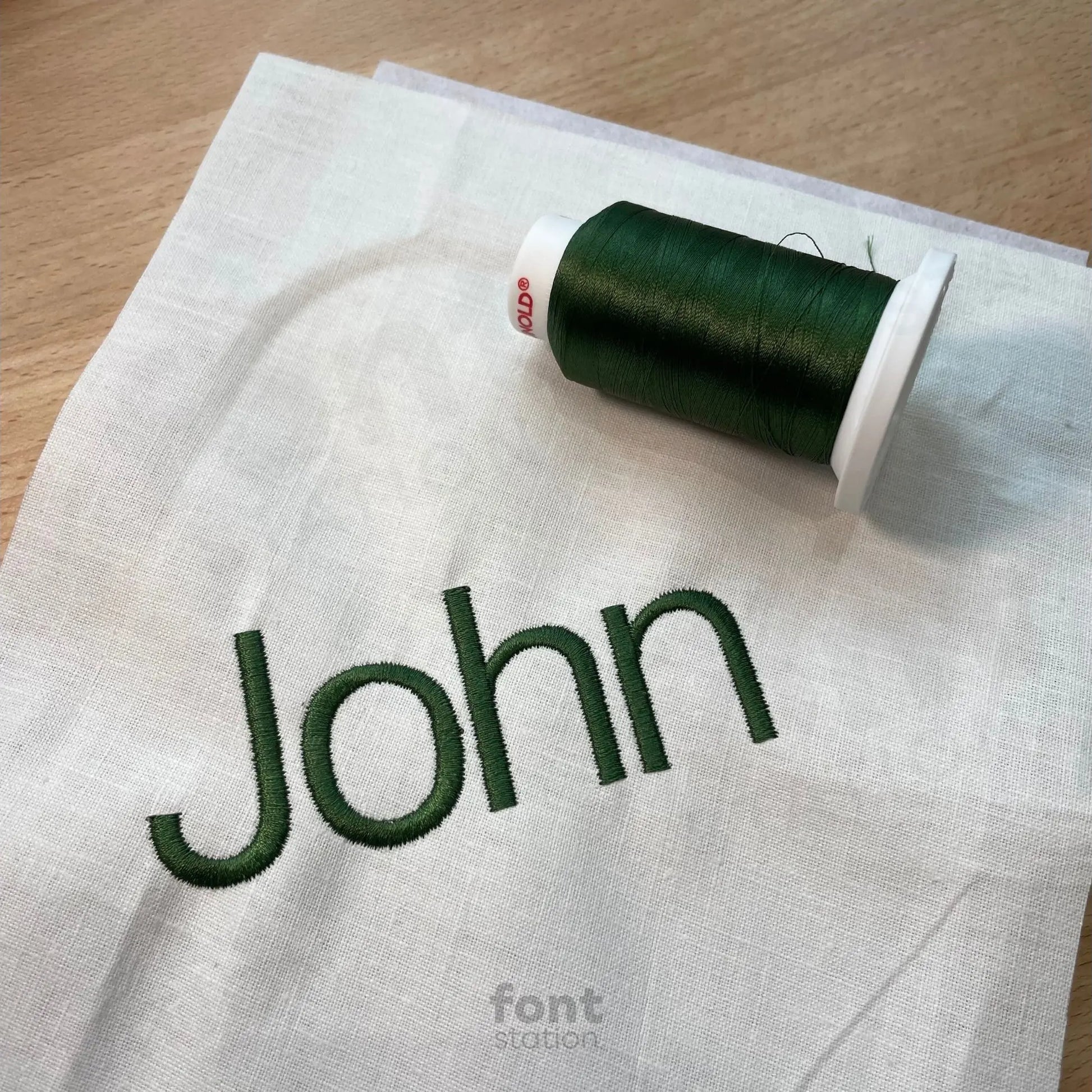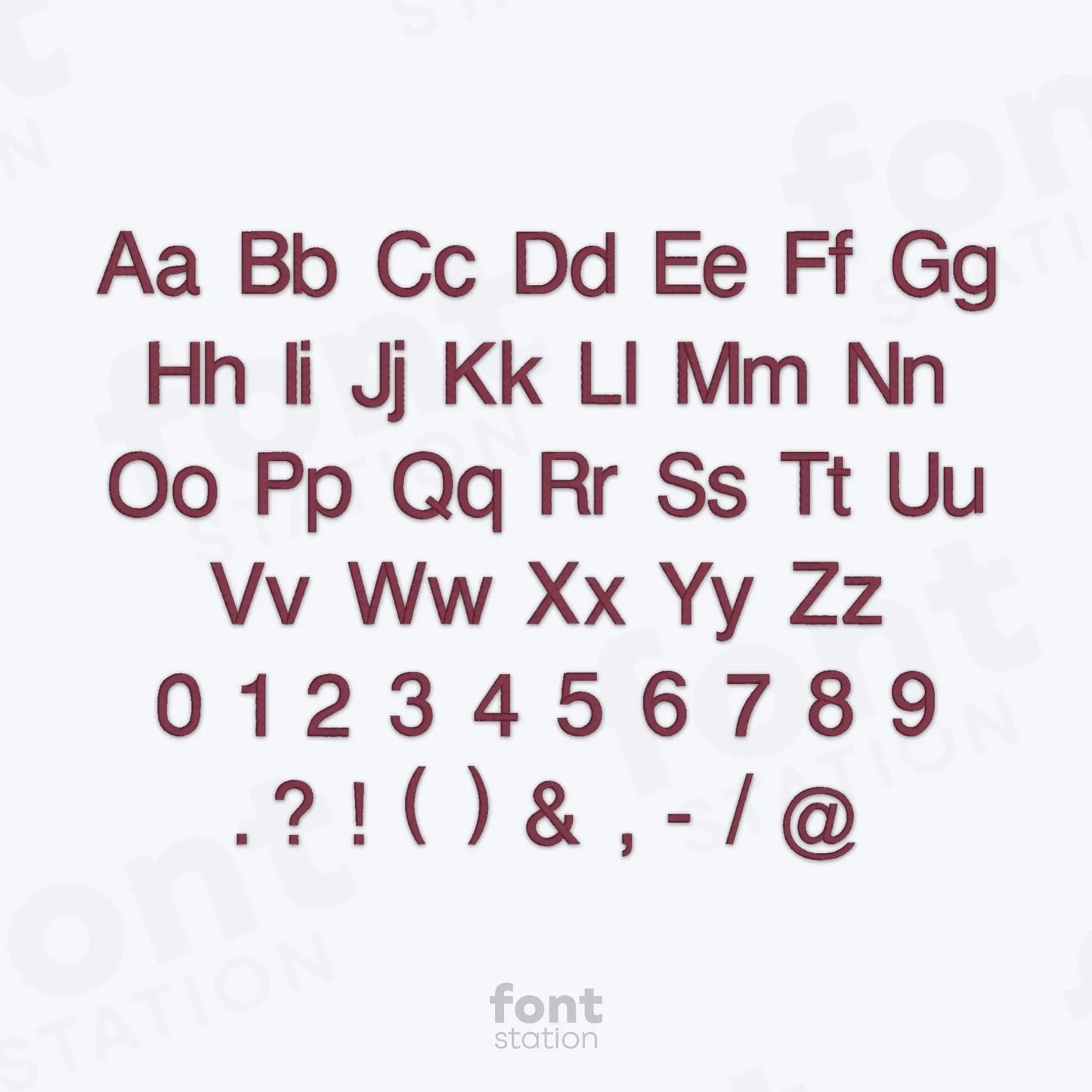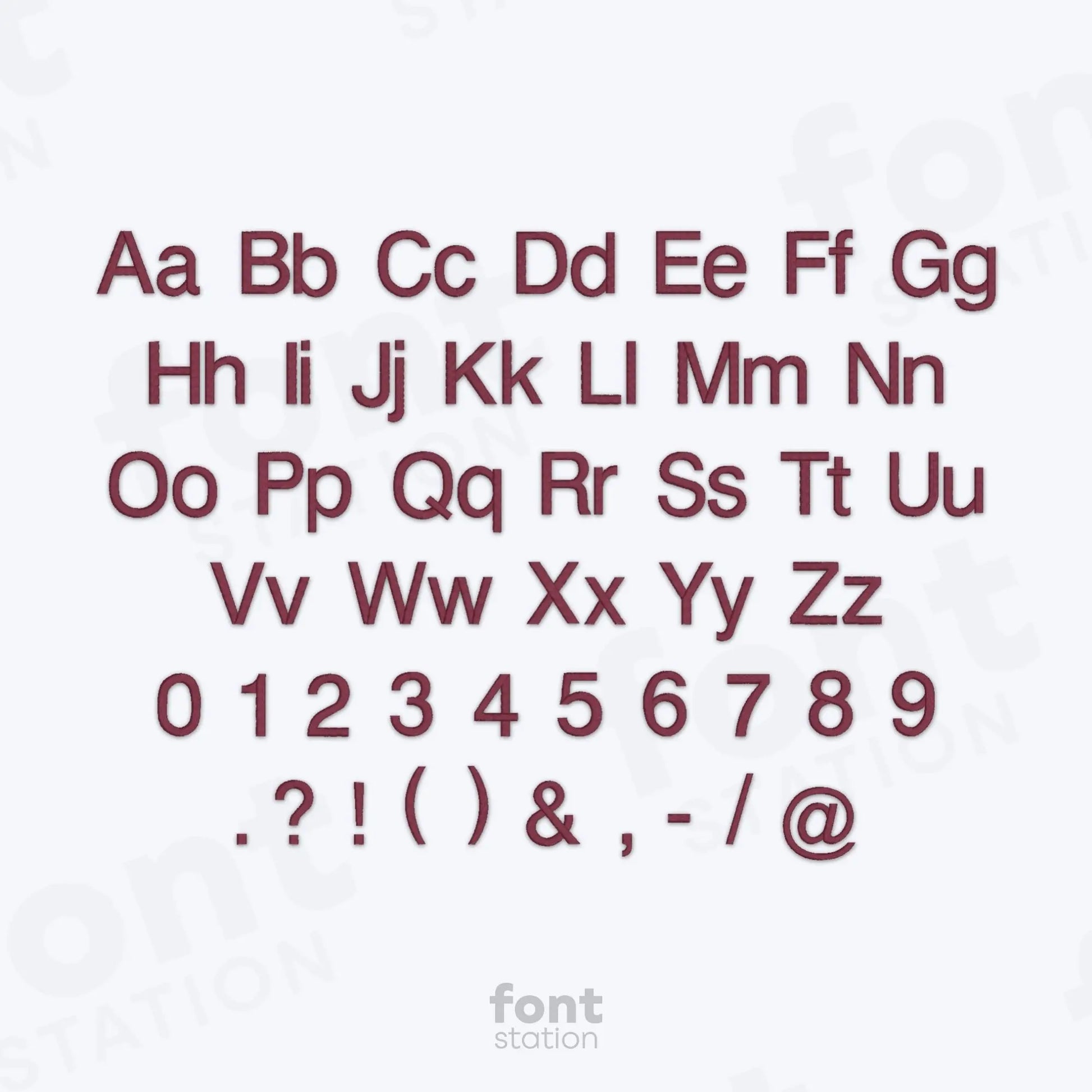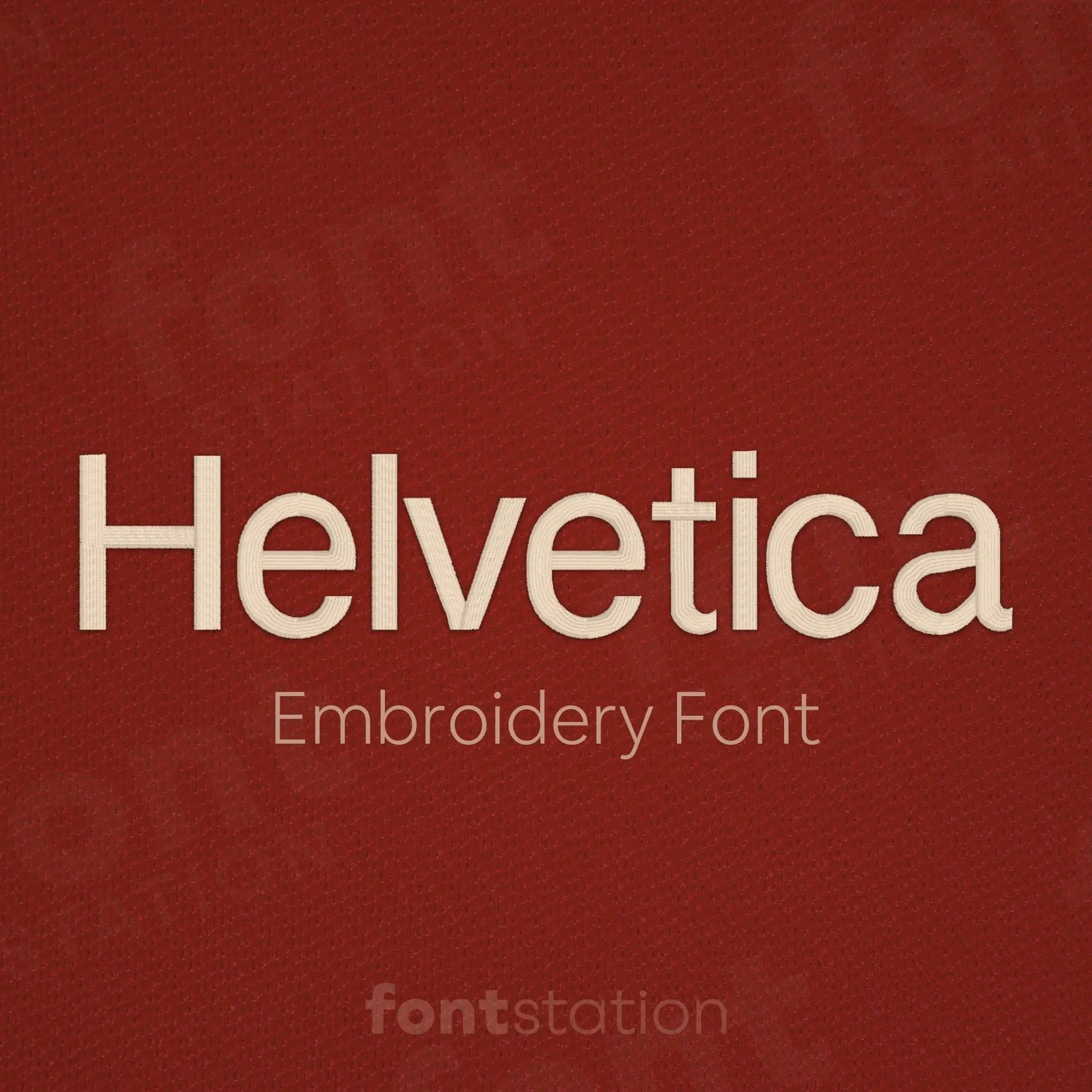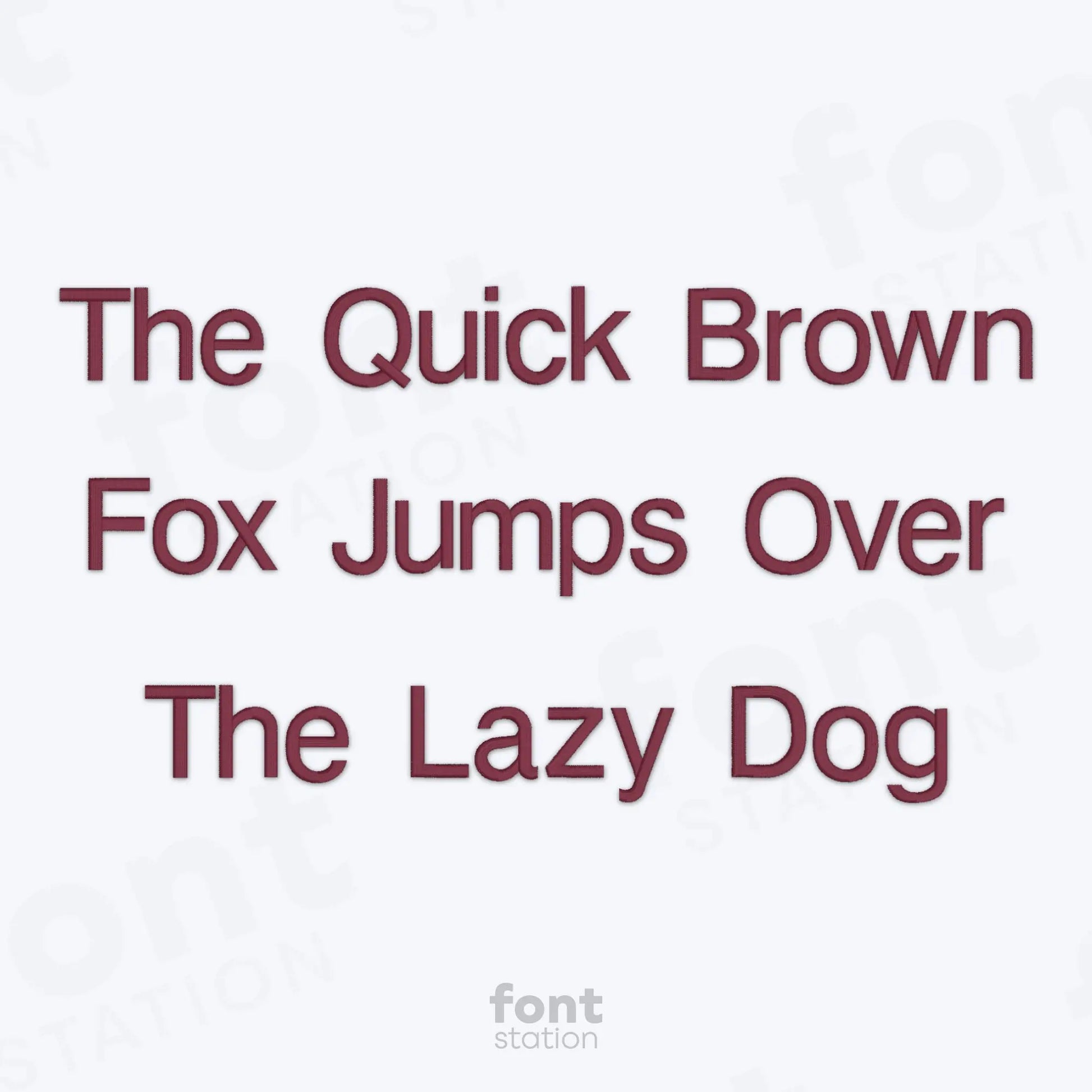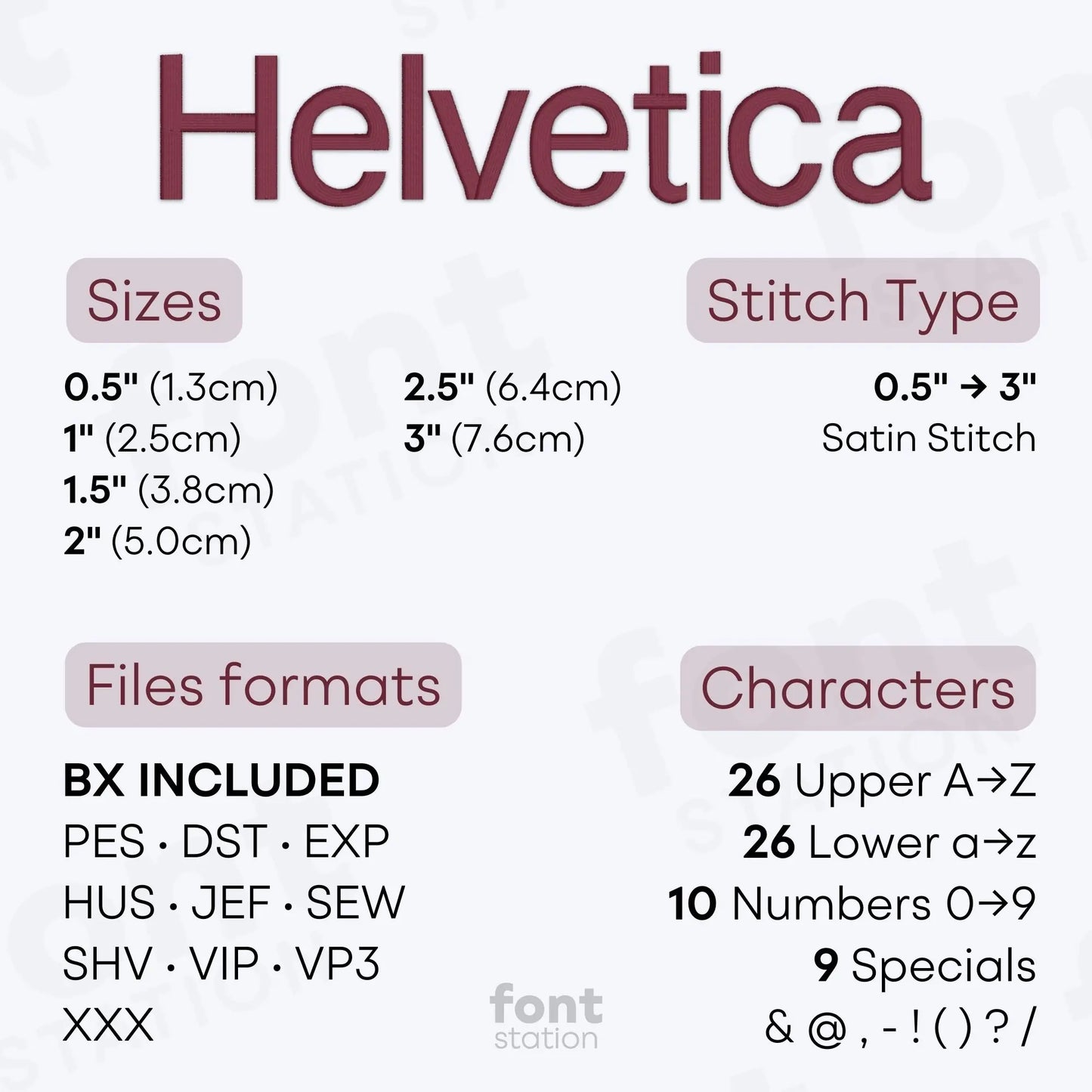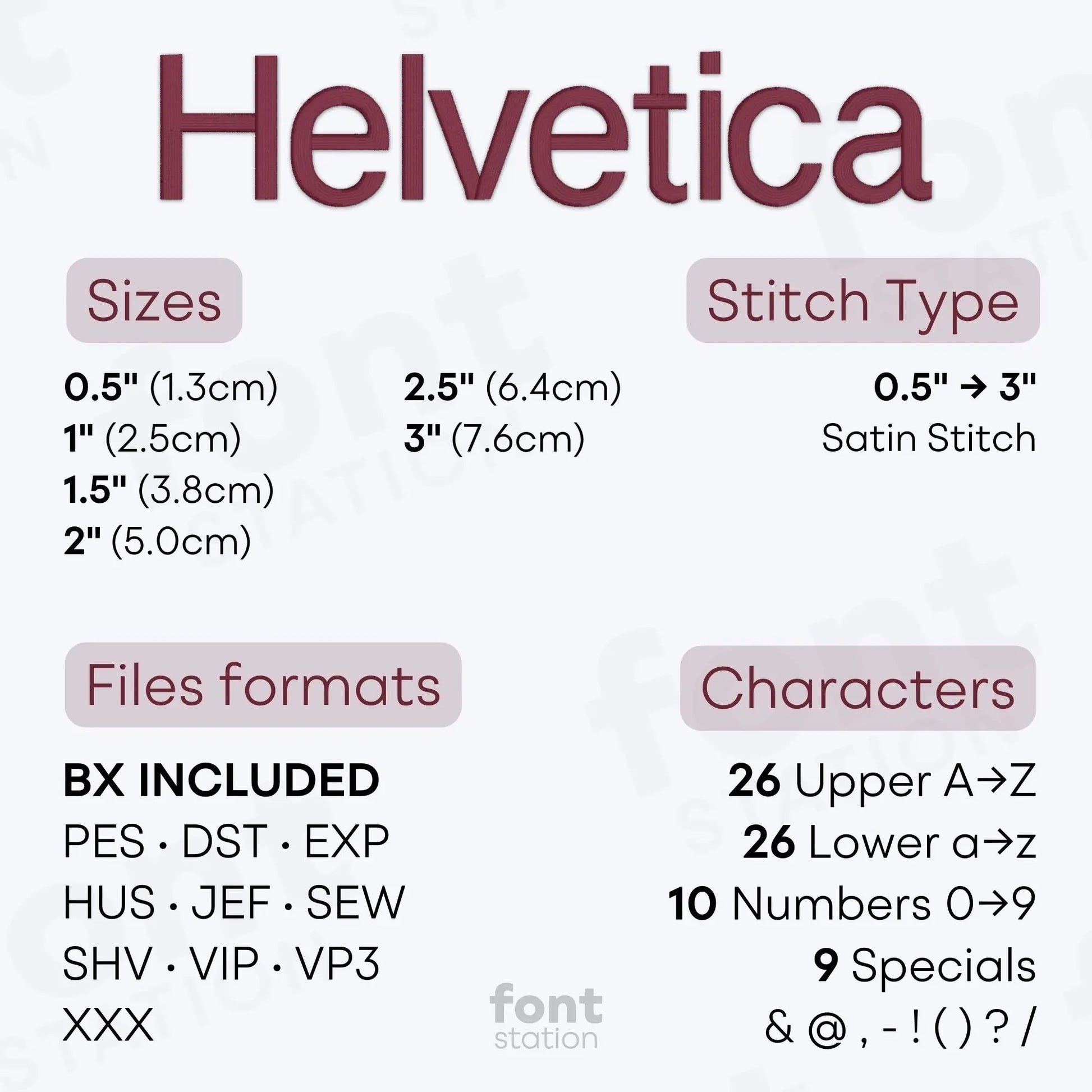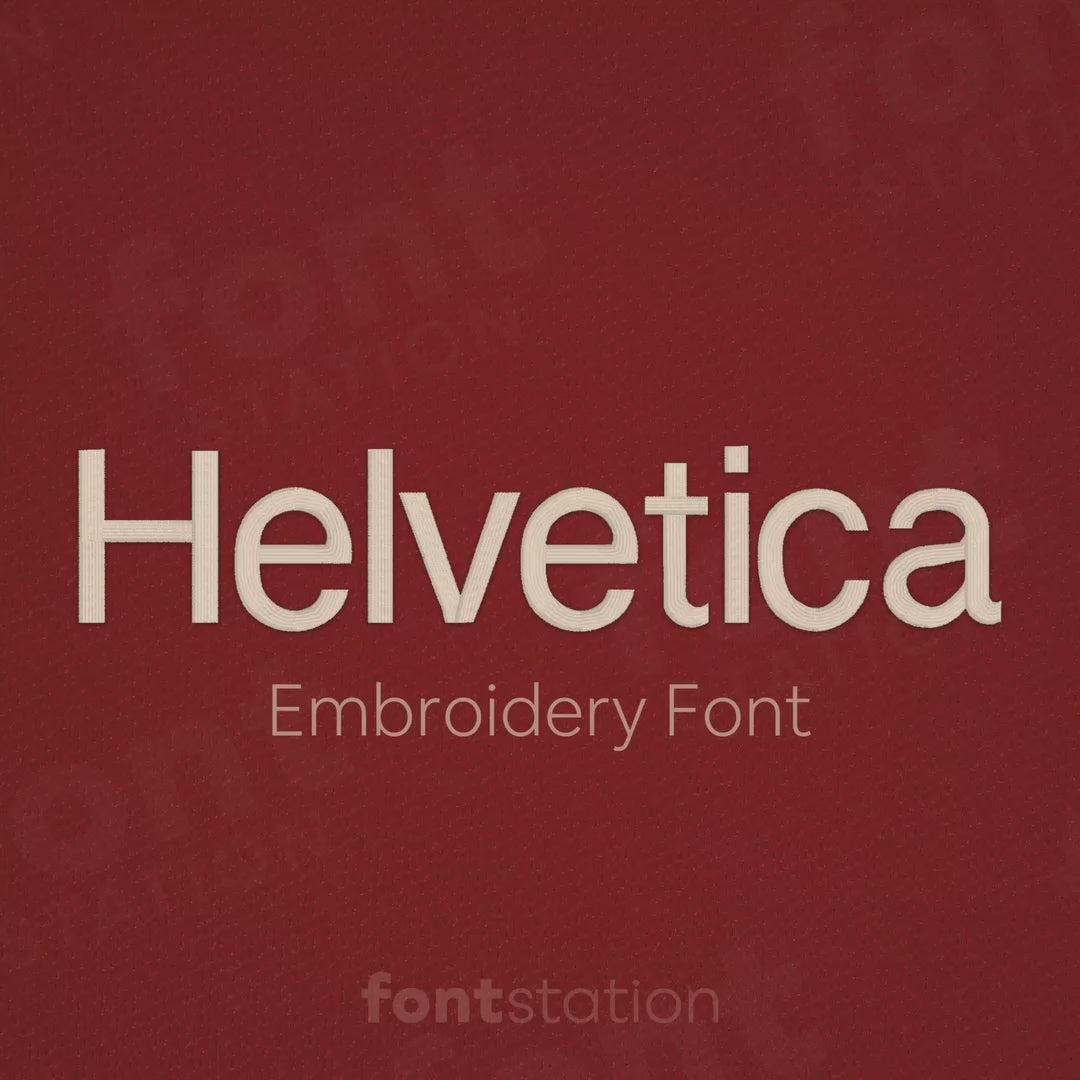
Helvetica Embroidery Font
Introducing our Helvetica embroidery font, a classic sans serif alphabet designed to stitch clean, balanced letters for any project. Ideal for crisp, modern designs, this versatile font works beautifully with your embroidery machine on everything from labels to monograms.
About the Helvetica Embroidery Font
Satin Stitch: 0.5", 1", 1.5", 2", 2.5", and 3"
Characters: 26 uppercase, 26 lowercase, 10 numbers, and symbols & @ , - ! ( ) ? /
Our Helvetica embroidery font brings timeless, modern style to your embroidery designs.
The Helvetica embroidery font features a clean, classic sans serif alphabet known for its readability and versatility. Perfect for monograms, logos, labels, and everyday projects, this embroidery font offers smooth, balanced letters that stitch beautifully on any embroidery machine. Available in widely used formats like BX, PES, DST, JEF, EXP, VP3, HUS and more, it's a go-to choice for both professional and personal embroidery designs.